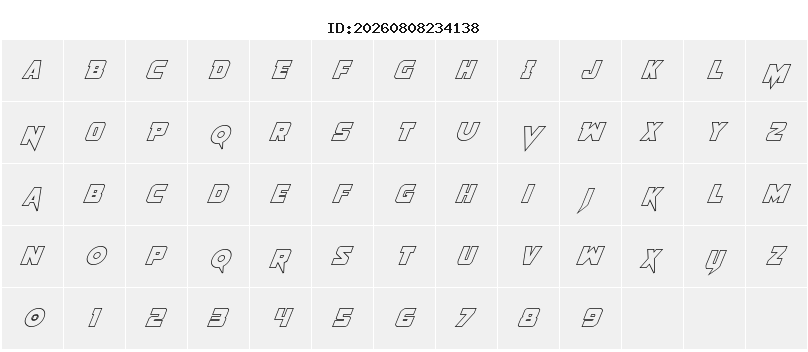
Pistoleer Outline Italic Preview
• Font Name: Pistoleer Outline Italic
• Full Font Name: Pistoleer Outline Italic
About Pistoleer Outline Italic.ttf
Pistoleer Outline Italic.ttf is a modern, elegant sans-serif font designed for ultimate readability and visual harmony. Perfect for branding, headlines, web design, and print materials.